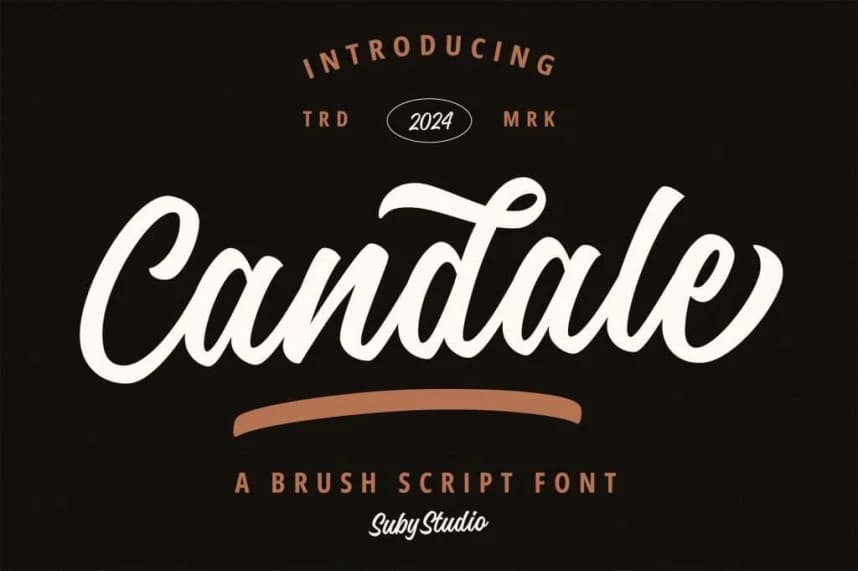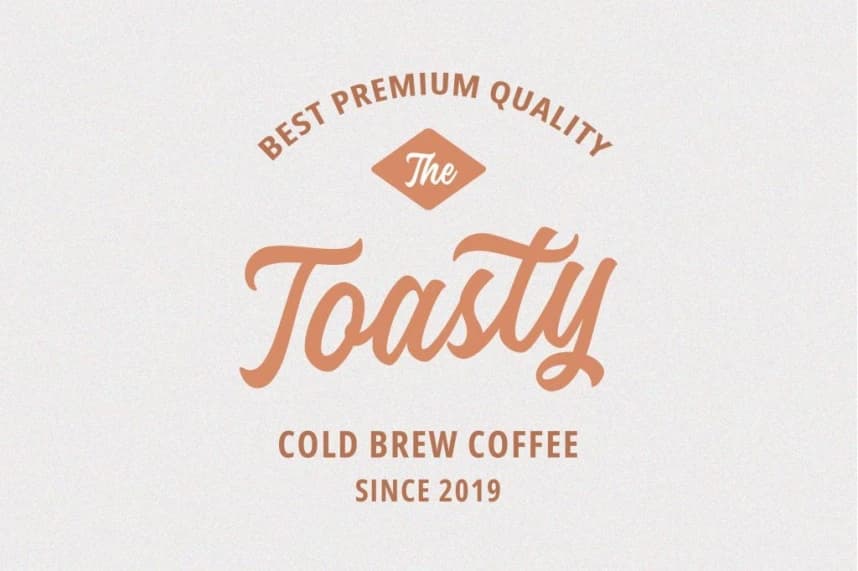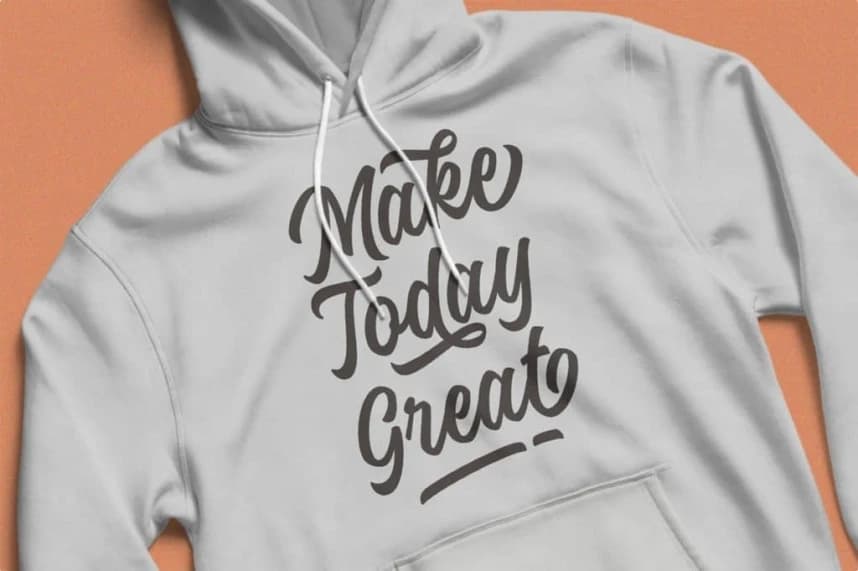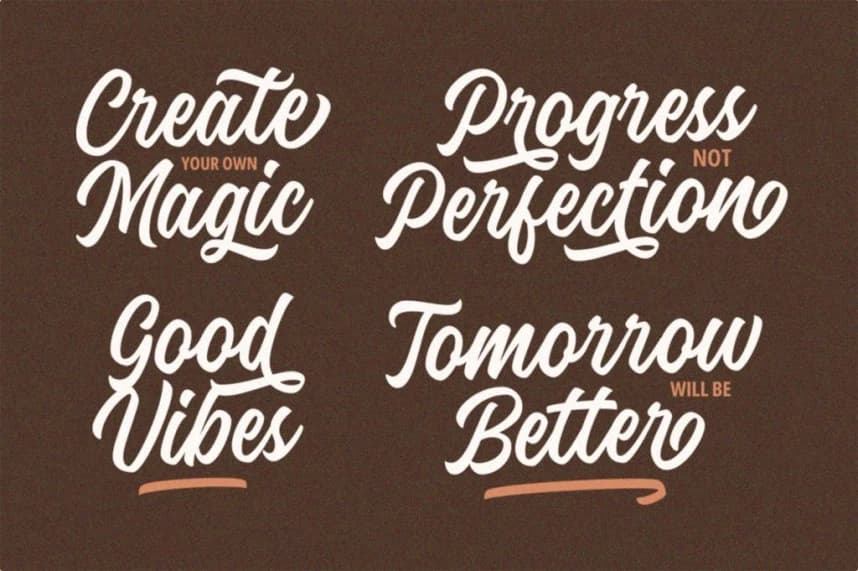
Candale Script Font
Candale Script Font - brush script with natural vintage looks. You can use to make logotype, apparel design, quotes, wedding designs, social media posts, product packaging, labels, photography, posters, and others
Candale Script